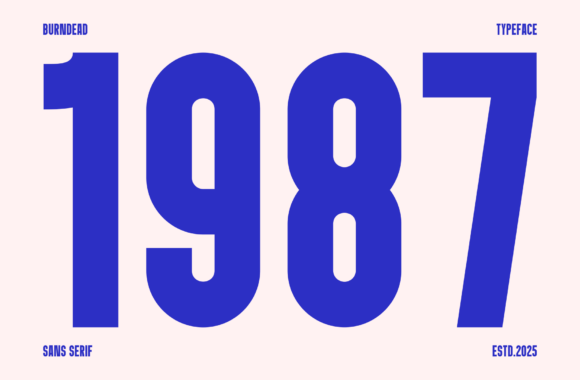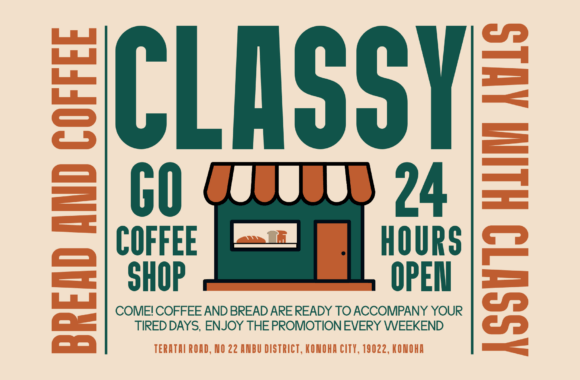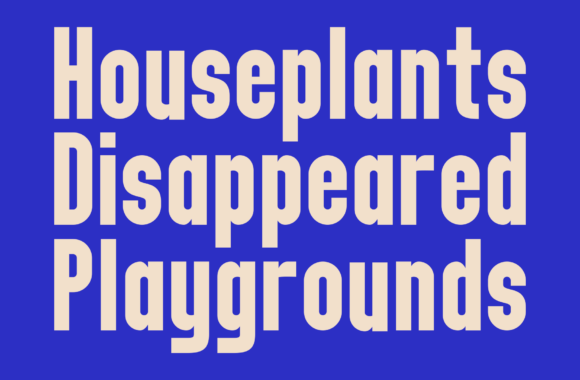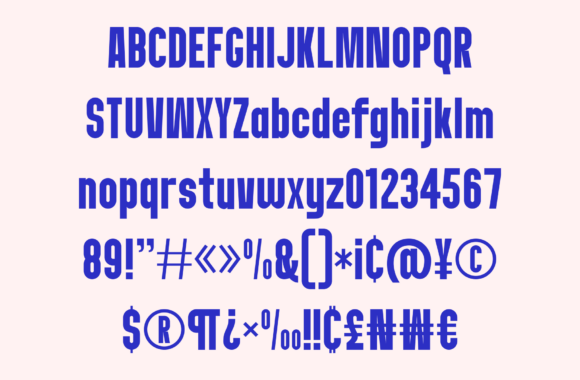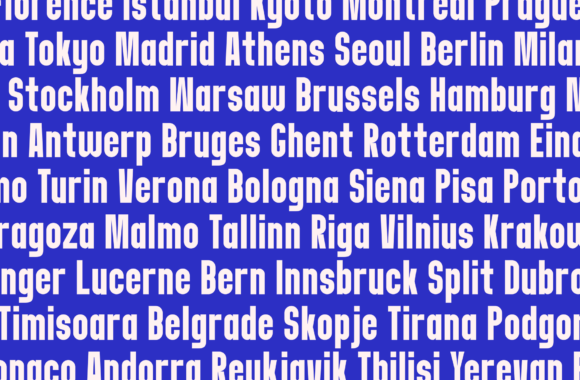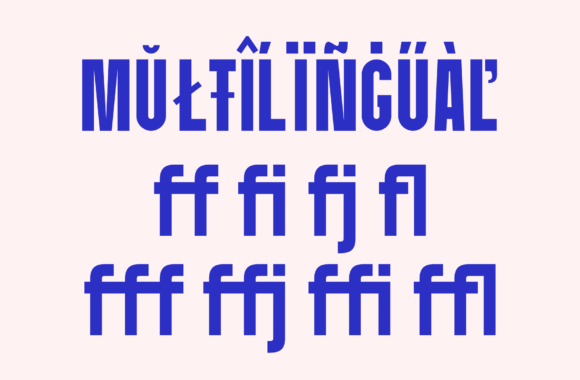
Introducing Burndead Font: The Ultimate Bold and Dynamic Condensed Sans-Serif
In the world of typography, a font can make all the difference in conveying a message, expressing a brand’s identity, and capturing the attention of the audience. If you’re a designer, craftsperson, or simply a typography enthusiast, you’re in for a treat with the Burndead Font. This bold and dynamic condensed sans-serif font is designed to make a statement, and we’re excited to dive into its features, benefits, and uses.
A Modern Typographic Style
Burndead Font embodies a modern typographic style that merges utility with bold visual impact. Its commanding vertical structure and assertive presence make it perfect for headlines, editorial layouts, branding, and impactful signage. The condensed form of Burndead allows for maximum space utilization while maintaining strong legibility, making it an ideal choice for designers who want to make a statement.
Inspired by High-Performance Aesthetics
The Burndead Font is inspired by high-performance aesthetics, evoking the worlds of motorsport culture, urban dynamism, and digital media. This font is particularly suitable for brands that seek a modern, assertive identity. Whether used in motion graphics, posters, or product packaging, Burndead communicates energy, confidence, and clarity with every glyph.
Key Features of Burndead Font
- Bold and Dynamic Design: Burndead Font features a bold and dynamic condensed sans-serif design that’s perfect for making a statement.
- Condensed Form: The font’s condensed form makes it especially effective for maximizing space while maintaining strong legibility.
- High-Performance Aesthetic: The font’s design is inspired by high-performance aesthetics, making it perfect for brands that seek a modern, assertive identity.
Uses of Burndead Font
Burndead Font is a versatile font that can be used in a variety of applications, including:
- Headlines and Editorial Layouts: The font’s bold and dynamic design makes it perfect for headlines and editorial layouts.
- Branding and Signage: Burndead Font is ideal for branding and signage, as it communicates energy, confidence, and clarity.
- Motion Graphics and Posters: The font’s condensed form and bold design make it perfect for motion graphics and posters.
- Product Packaging: Burndead Font can be used in product packaging to add a modern and assertive touch.
Why Choose Burndead Font?
There are many reasons why designers and craftspersons should choose Burndead Font for their projects. Here are a few:
- Unique and Modern Design: Burndead Font features a unique and modern design that’s sure to stand out.
- High Legibility: The font’s condensed form and bold design ensure high legibility, even at small sizes.
- Versatile: Burndead Font can be used in a variety of applications, from headlines and editorial layouts to branding and signage.
In conclusion, Burndead Font is a bold and dynamic condensed sans-serif font that’s perfect for designers, craftspersons, and typography enthusiasts. Its modern typographic style, high-performance aesthetic, and versatile uses make it an ideal choice for a wide range of projects. With its commanding vertical structure, assertive presence, and easy-to-use design, Burndead Font is sure to make a statement in any project.